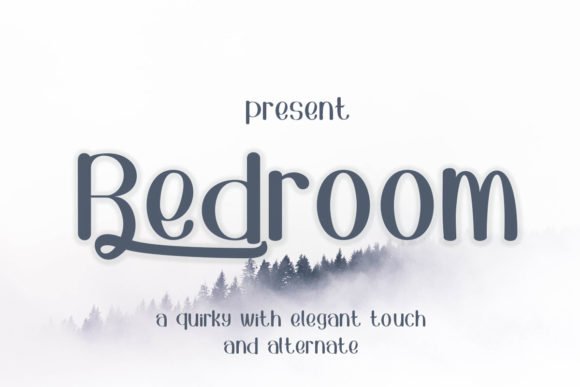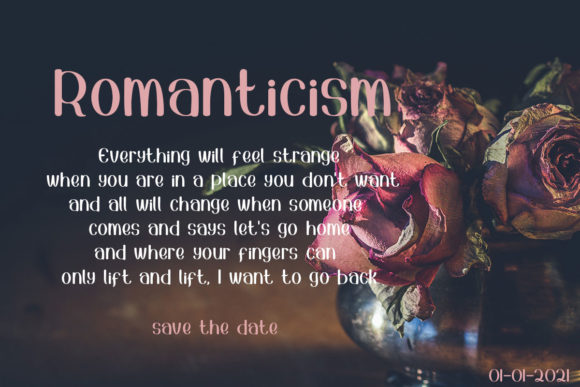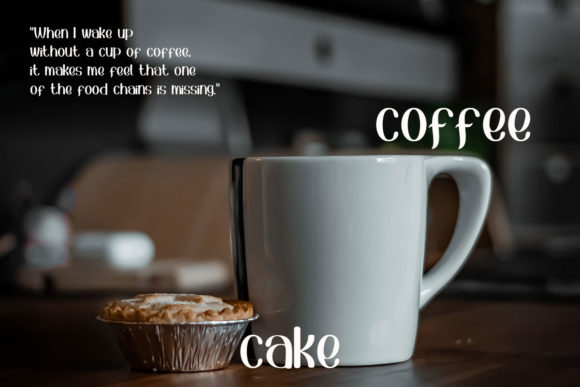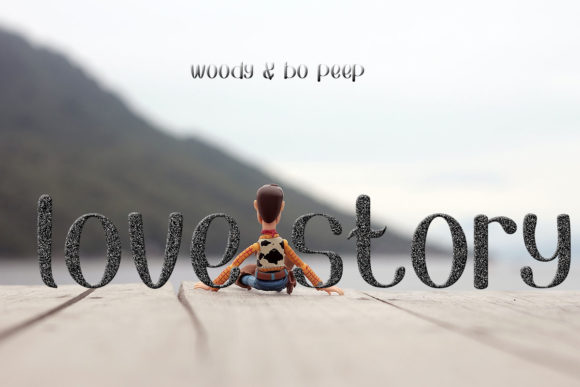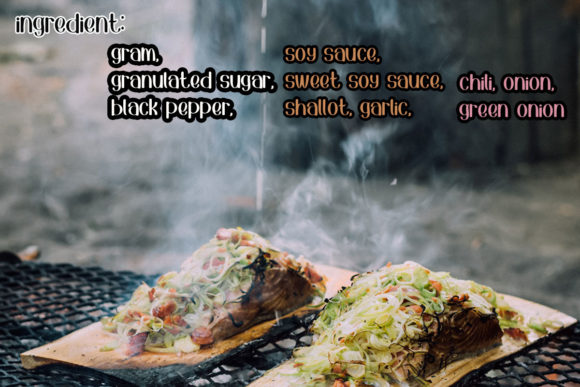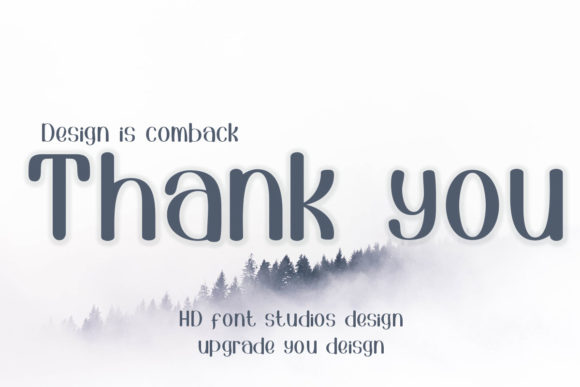
Where Romance Meets Typography
There’s something magical about sitting down with a pen and paper, surrounded by love letters, ticket stubs, and other cherished keepsakes. It’s in these quiet moments that creativity often strikes, and for designers, it’s the perfect spark to ignite a new project. For me, it was the sweet and whimsical Bedroom Font that brought a smile to my face and a spring to my step.
Bedroom Font is a delightful handwritten font that exudes romance and joy. Whether you’re crafting wedding invitations, designing cards, or creating a custom logo, this font is the perfect addition to bring a touch of personality to your work. Its PUA encoding makes it easy to access the beautiful glyphs and swashes, ensuring your designs are as beautiful as they are unique.
Key Features of Bedroom Font
- Font Family: Bedroom Font is a sans-serif typeface designed to evoke a sense of comfort and relaxation. It consists of 3 weights: Light, Regular, and Bold.
- Character Count: The font contains a wide range of characters, including uppercase and lowercase letters, numerals, punctuation marks, and special characters.
- Unique Characteristics: Bedroom Font features a unique rounded design with subtle rounded corners, giving it a friendly and approachable feel.
Bedroom Font Review
Overall, I think Bedroom Font is a unique and quirky addition to any digital design project. ✨ I love the whimsical feel it brings to text, making it perfect for designs that need a touch of personality. The font’s irregularities and handmade look add to its charm, making it stand out from more traditional fonts.
- ✨ Handmade, irregular feel adds a touch of personality to designs
- ✨ Perfect for designs that need a unique, quirky touch
- ✨ Can be used for a variety of design projects, from invitations to branding
However, there are some limitations to consider. ⚠️ The font may not be suitable for projects that require a more professional or corporate look, as its handmade feel can come across as amateurish. Additionally, the font’s irregularities can make it difficult to read in certain contexts, particularly at smaller font sizes.
Overall, I think Bedroom Font is a great choice for designers who want to add a touch of personality to their projects. While it may not be suitable for every project, it’s a great option for those who want to stand out from the crowd. With a little creativity and careful use, Bedroom Font can be a valuable addition to any designer’s toolkit.
Getting the Most Out of “Bedroom Font”
To get the most out of “Bedroom Font,” try the following tips:
- Pair “Bedroom Font” with a soft, pastel color scheme for a relaxing atmosphere.
- Use “Bedroom Font” for headings and subheadings to create a clear visual hierarchy.
- Experiment with different font sizes and styles to add visual interest to your design.
“Bedroom Font” is commonly used in:
- Bedroom design and decor inspiration.
- Home and lifestyle blog posts.
Alternatives to “Bedroom Font” for Designers
Bedroom Font is a sans-serif typeface often used for headings and titles. However, for specific design requirements, alternative fonts can provide a more suitable aesthetic. Here are a few alternatives to Bedroom Font:
Open Sans is a clean and modern sans-serif typeface. It’s highly legible and suitable for both digital and print materials. Use Open Sans for designs that require a professional and approachable tone. Compared to Bedroom Font, Open Sans has a more rounded and friendly feel.
Lato is a sans-serif typeface that combines modern and elegant features. It’s perfect for designs that require a touch of sophistication and minimalism. Use Lato for projects that need a clean and sleek look. Compared to Bedroom Font, Lato has a more refined and elegant feel.
Montserrat is a sans-serif typeface inspired by urban typography. It’s ideal for designs that require a strong and industrial feel. Use Montserrat for projects that need a bold and edgy look. Compared to Bedroom Font, Montserrat has a more geometric and urban feel.